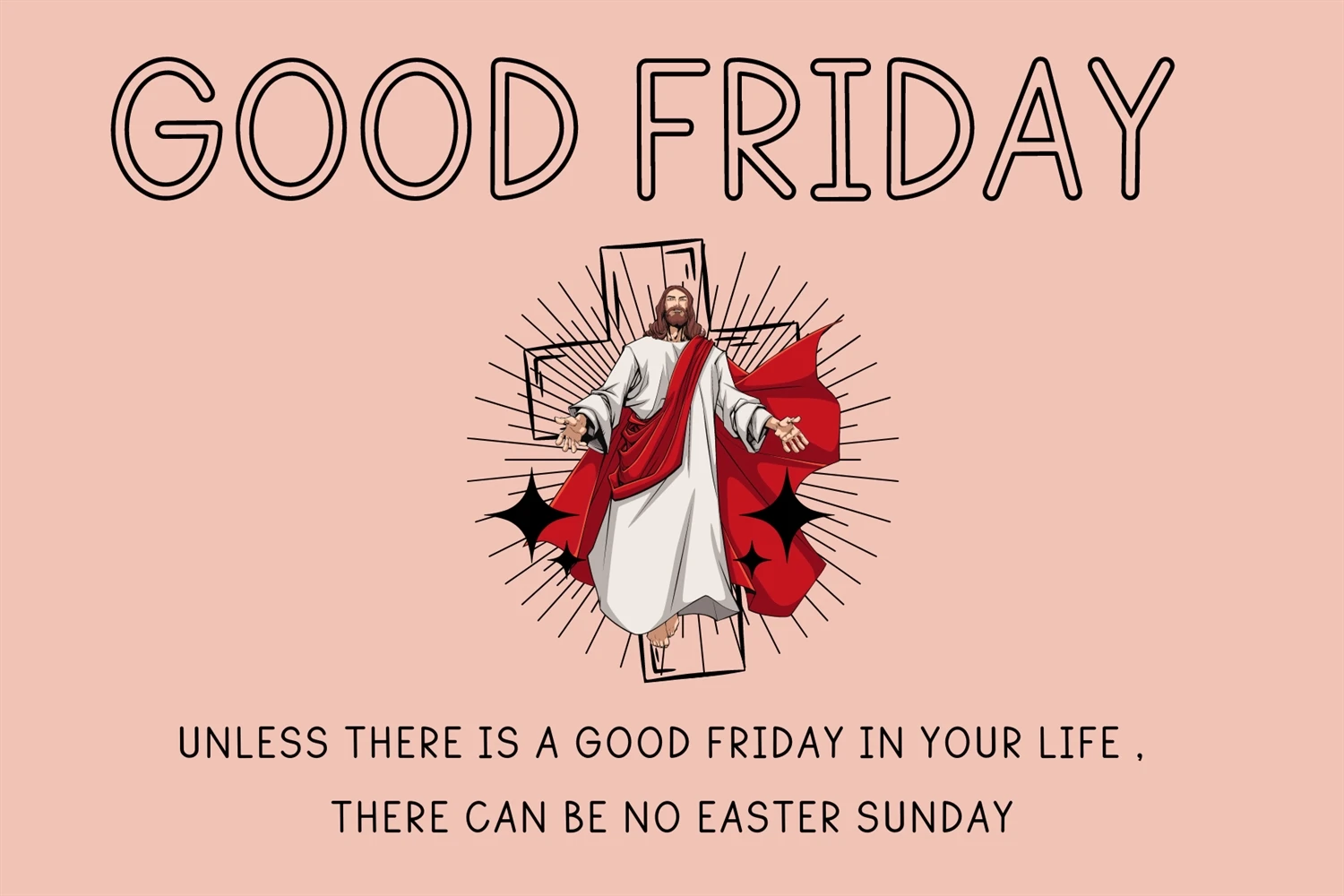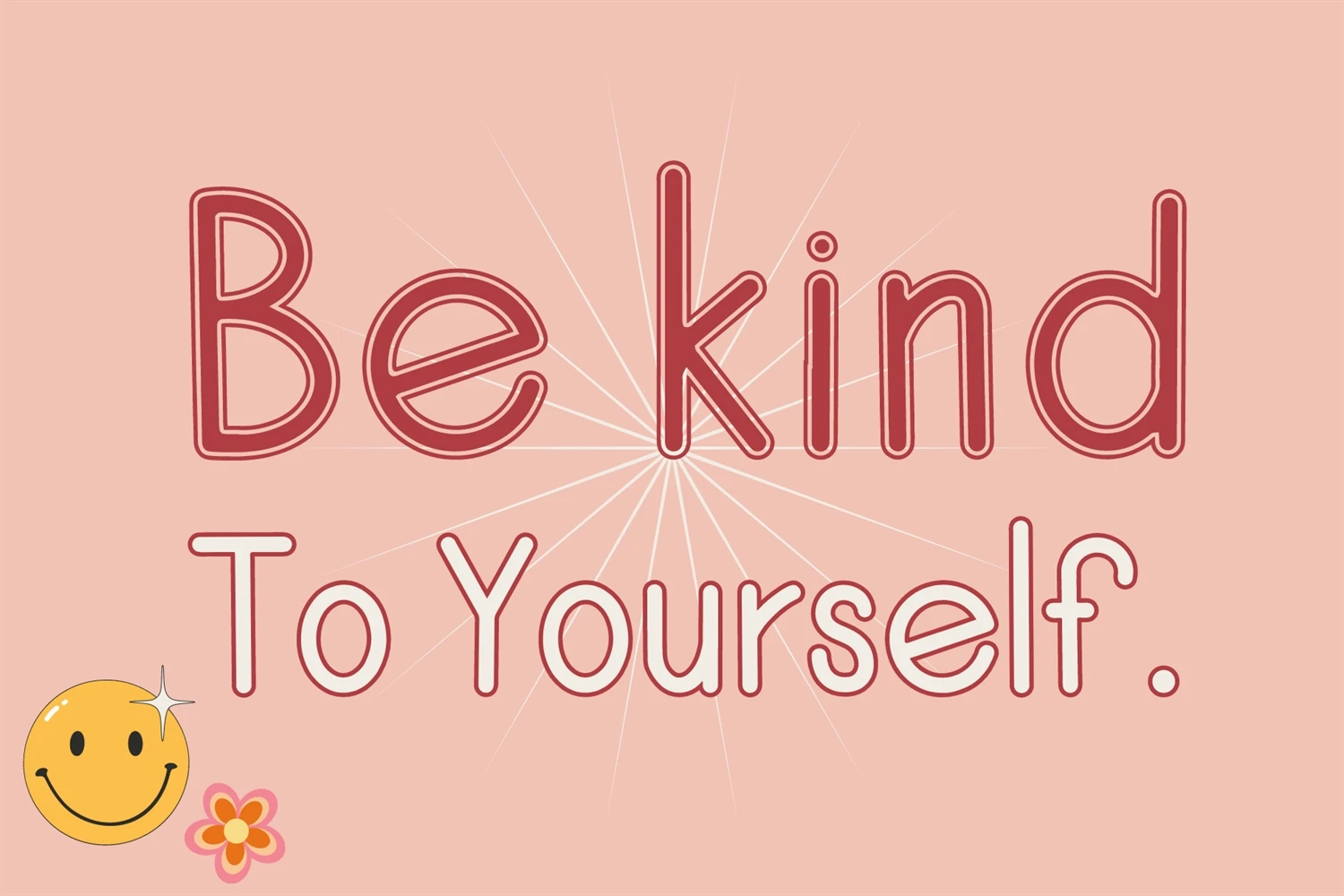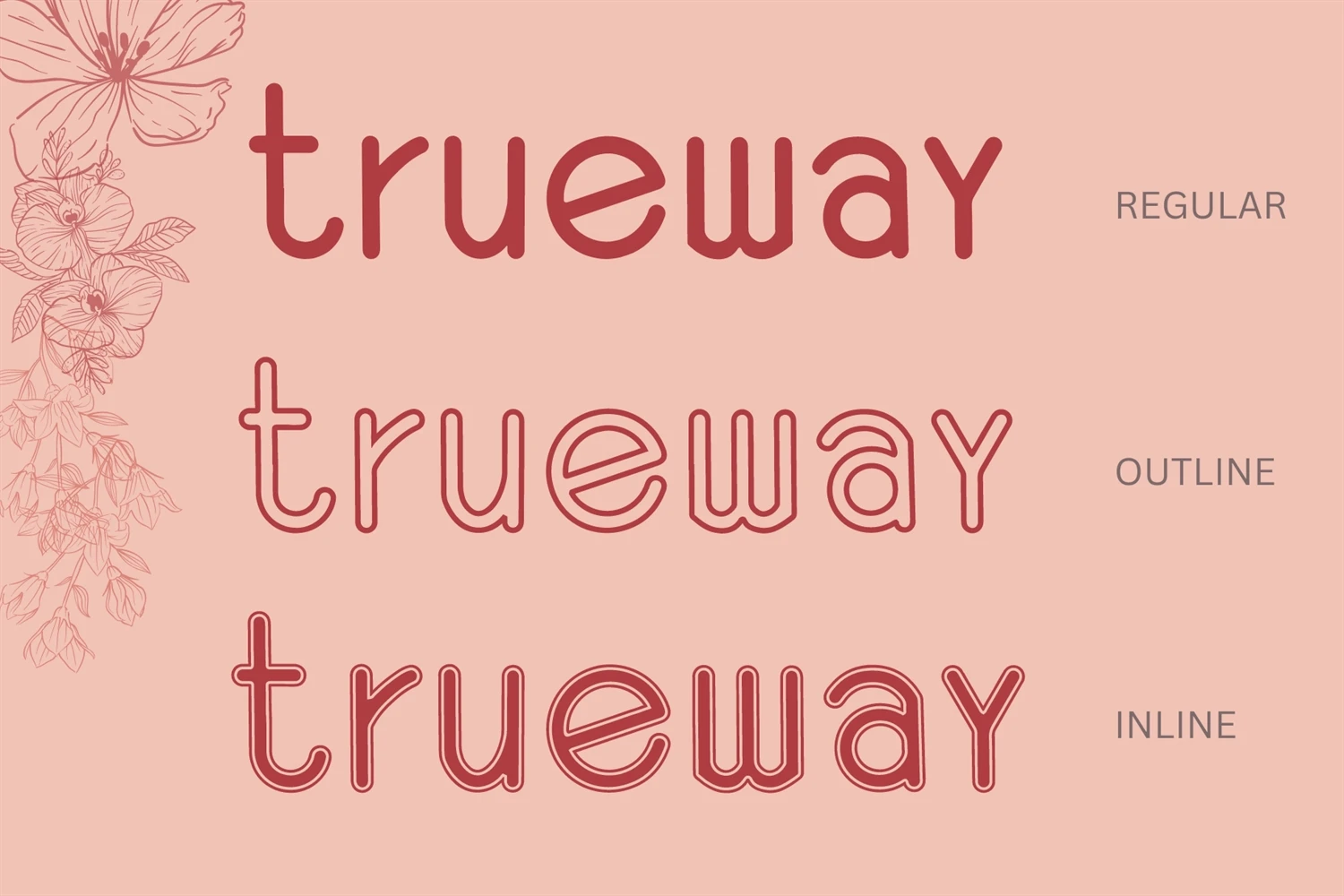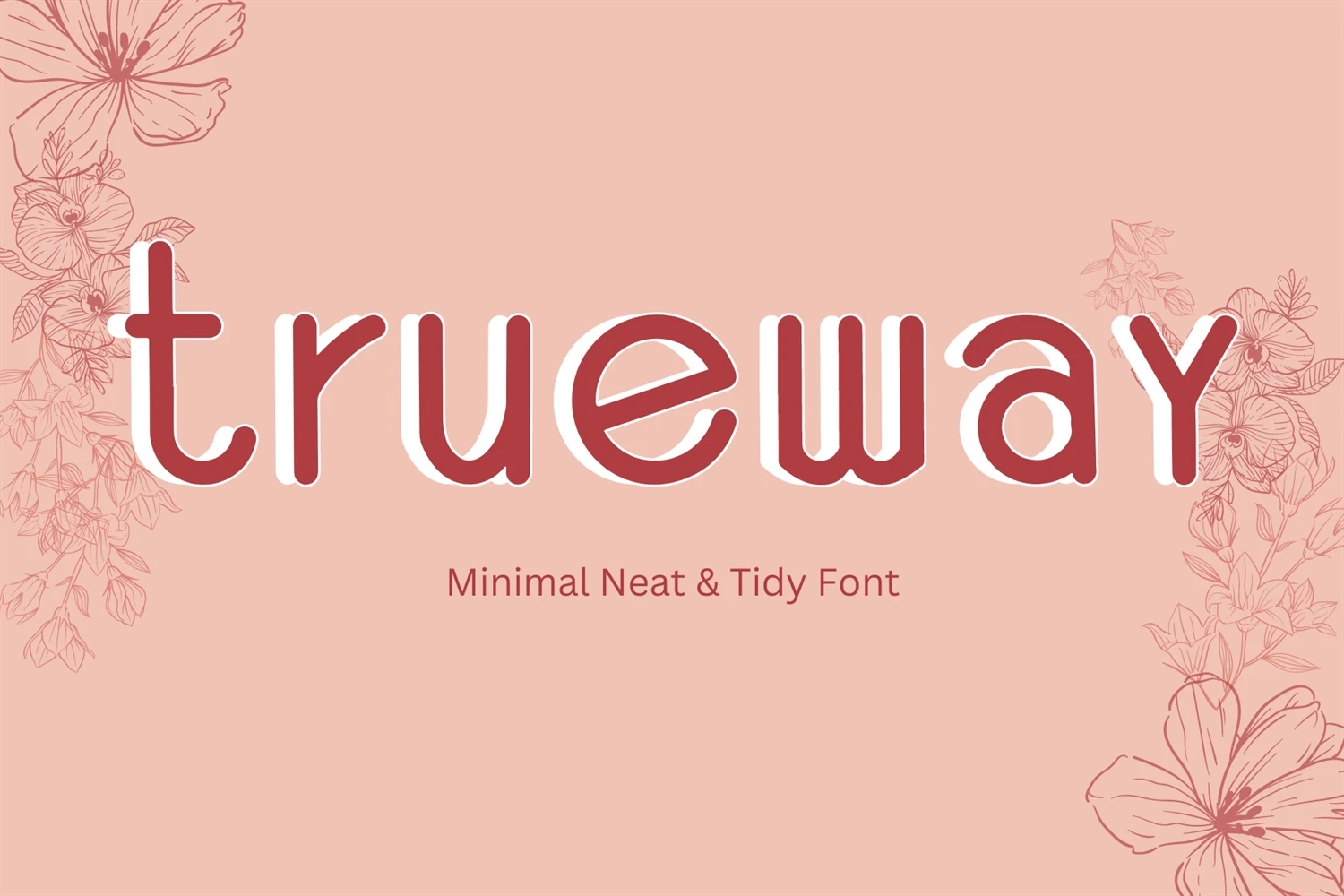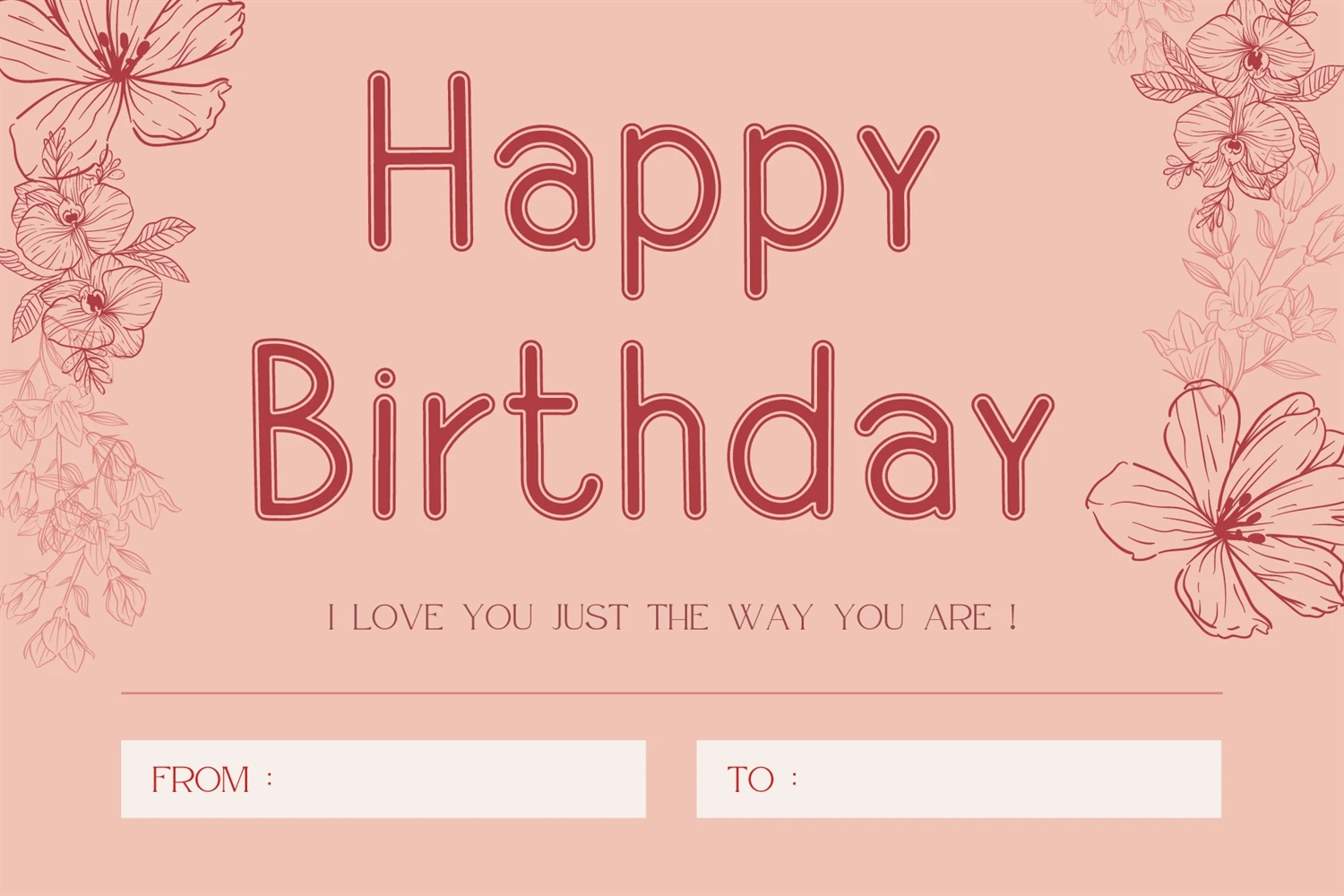
Trueway is a minimal and tidy sans-serif font that radiates simplicity and clarity. Its clean lines and unadorned design makes it the perfect choice for designs that require a modern and understated look. With its impeccable legibility, this font is sure to make a lasting impression.